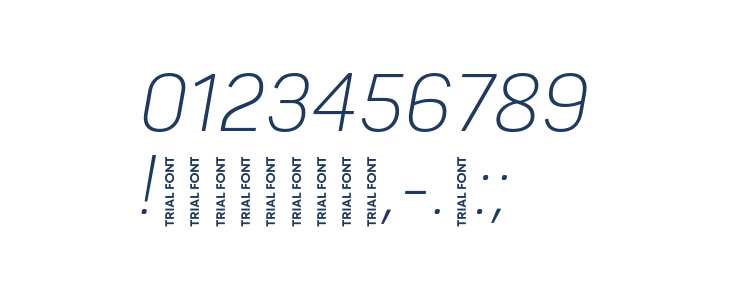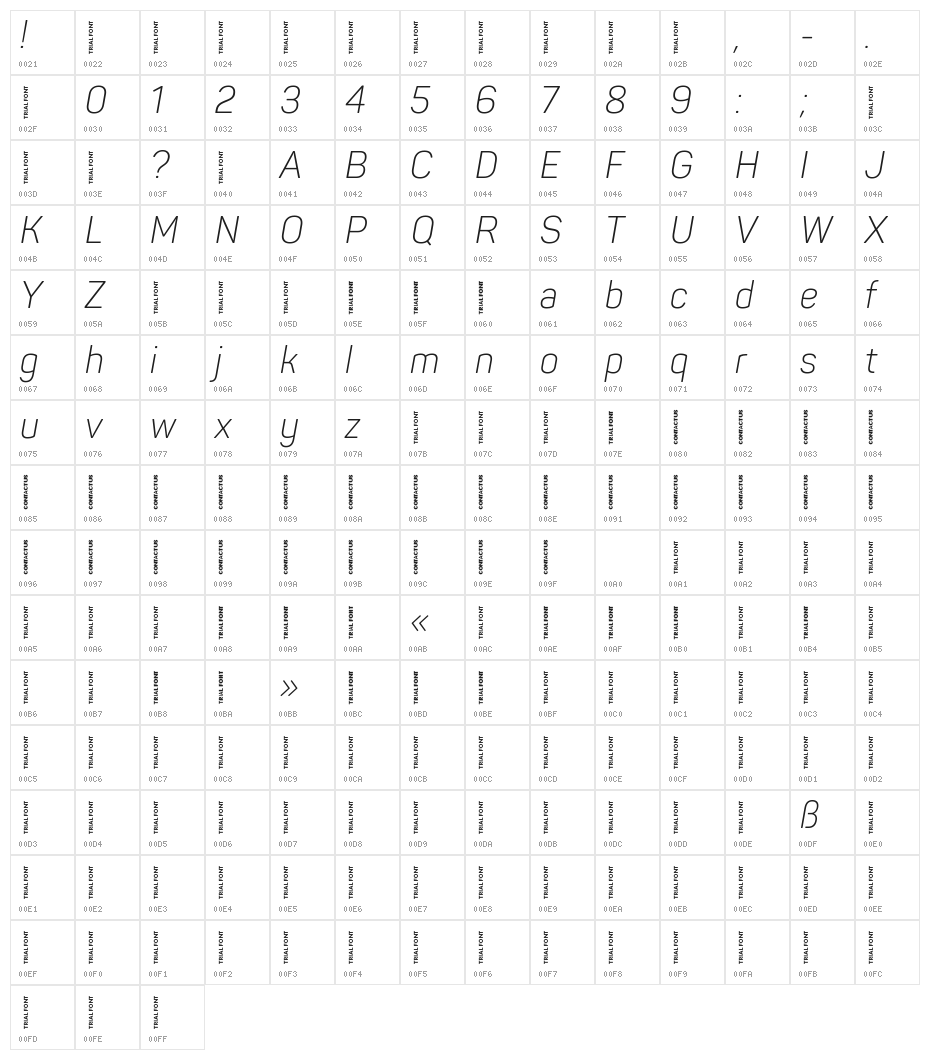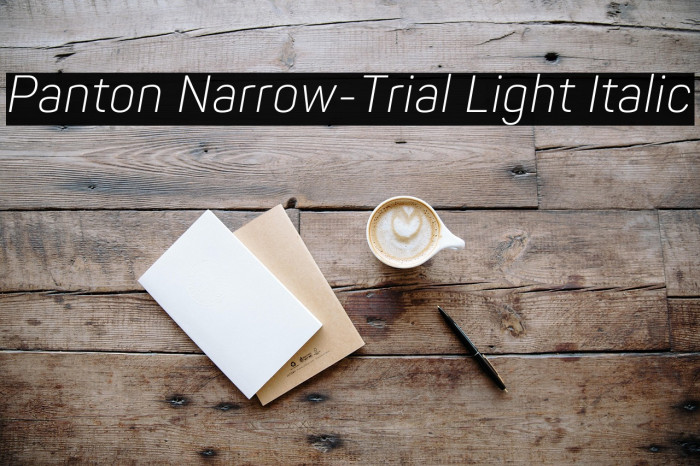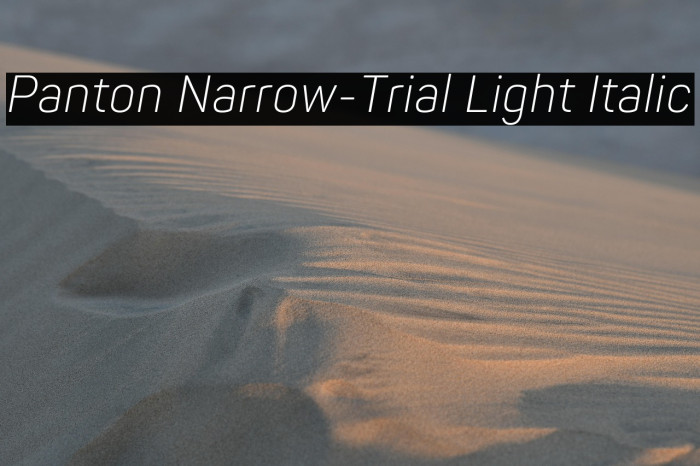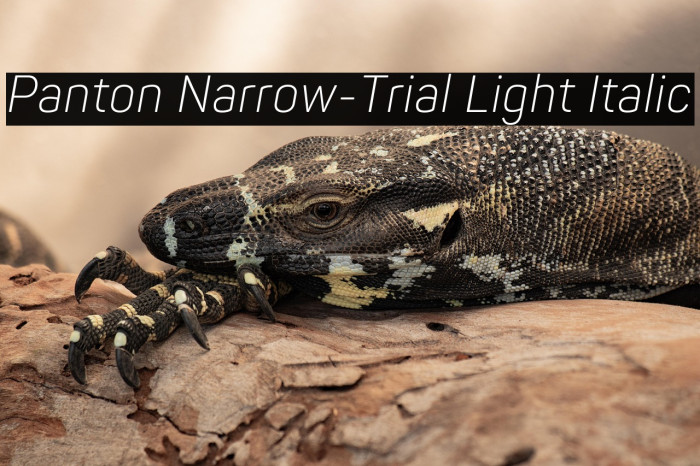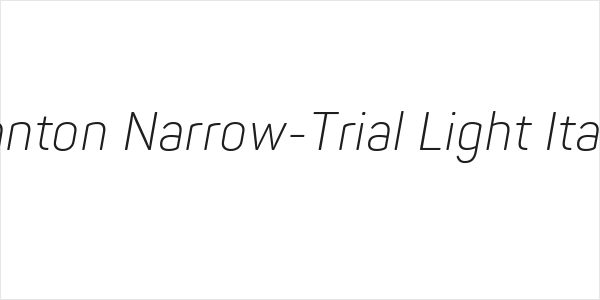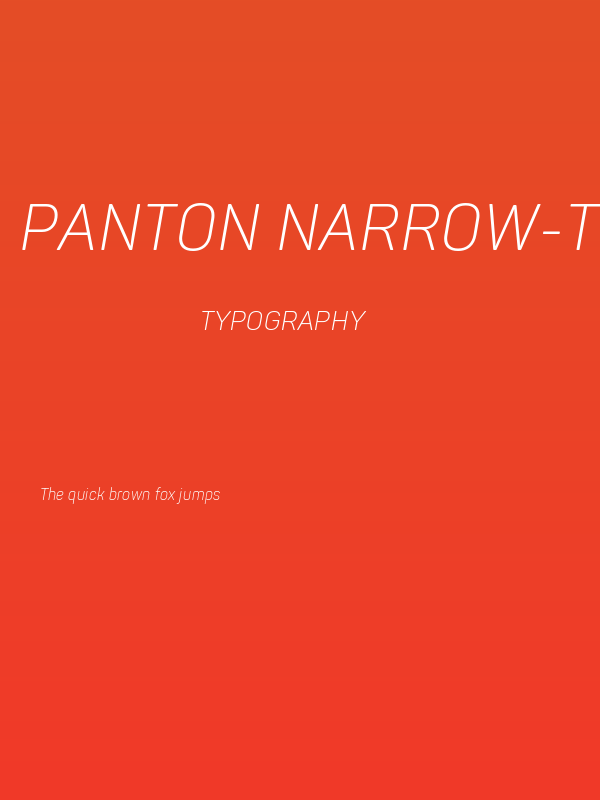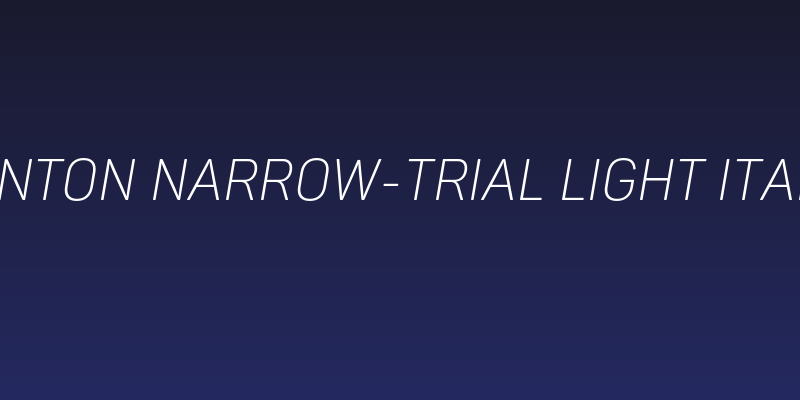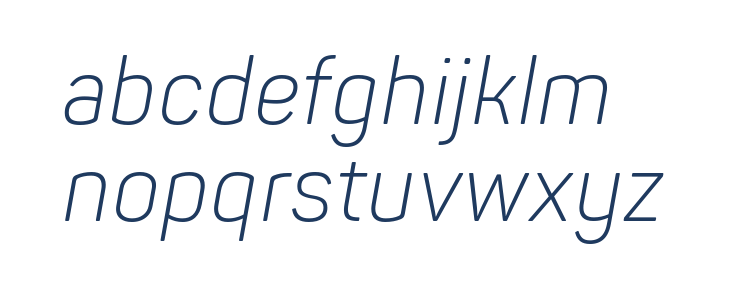
Panton Narrow-Trial Light Italic Font
Panton Narrow-Trial Light Italic Description
This font features a sleek and modern design with a narrow and light structure, making it ideal for contemporary projects. The italic style adds a sense of elegance and motion, while the consistent stroke width ensures readability. The characters are slightly condensed, giving a streamlined appearance. The font maintains a clean and professional look, suitable for a variety of applications. Its simplicity and clarity make it versatile for both digital and print media.
| Proposed Projects | Ideal for branding, editorial design, web design, and corporate materials. |